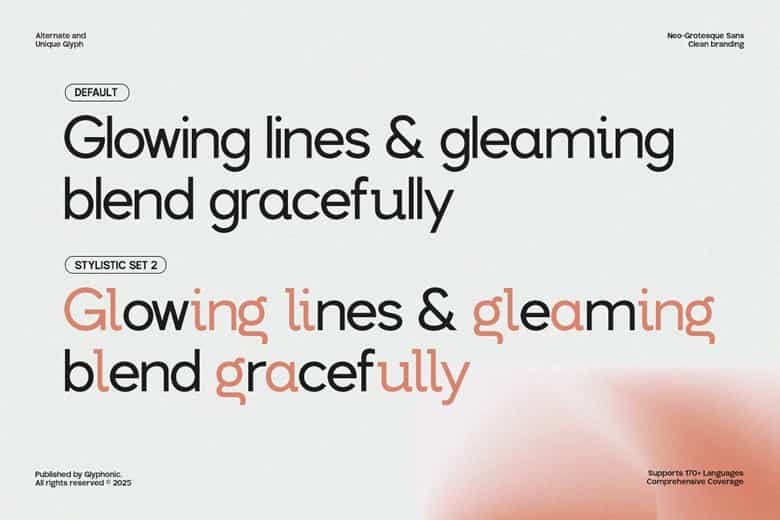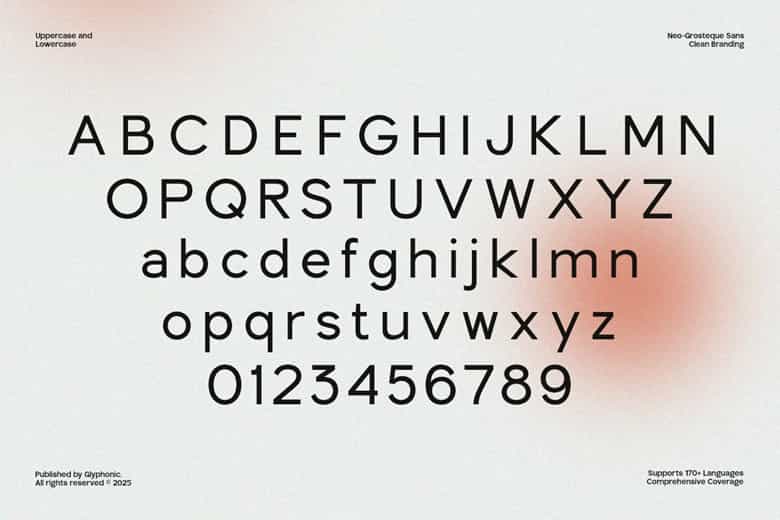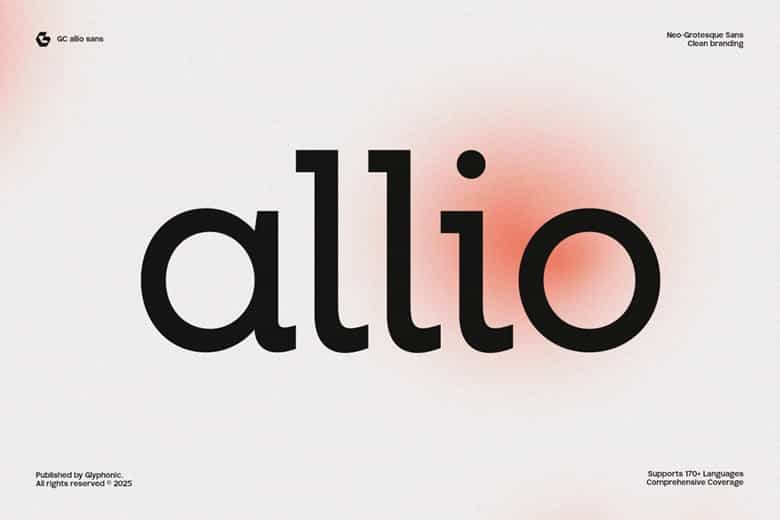
A neo-grotesque sans-serif typeface with minimal form but clarity, GC Allio typeface is a typeface with a lot of precision. It is present-day branding and uncluttered communication, with a pleasing range of weights, well suited to headline work, corporate identities, logos, packaging, and even editorial settings. It impresses with its sleek impression, created to satisfy those designers that prefer simplicity and beautiful design.